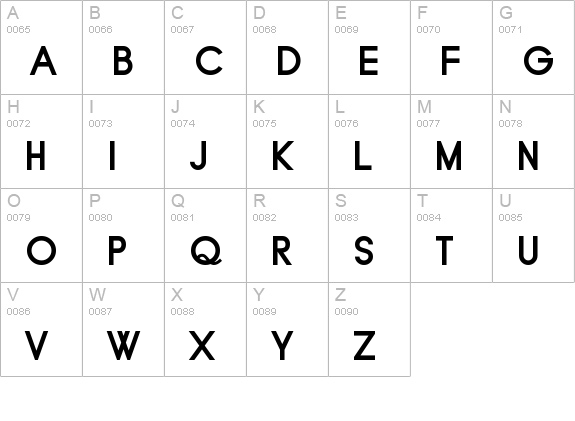
Typo Grotesk Bold Font Details
Typo Grotesk Bold is a strong, high-contrast variant in the Typo typeface family \xE2\x80\x94 well suited to headlines, attention-grabbing titles, and strong calls-to-action.
Typo Grotesk Bold font is a stunning display typeface that exudes power and confidence. With its bold and commanding presence, this font is perfect for headlines, titles, and any design project that requires a strong visual impact. The bold weight of Typo Grotesk creates a sense of authority and dominance, making it ideal for conveying important messages and grabbing the attention of the audience. Its clean and geometric letterforms give it a modern and contemporary look, while still maintaining a sense of elegance and sophistication. This font is designed with meticulous attention to detail, ensuring that each letter is perfectly balanced and harmonious. The thick strokes and sharp angles of Typo Grotesk Bold create a bold and impactful statement, while the generous spacing between letters ensures excellent legibility even at smaller sizes. One of the best things about Typo Grotesk Bold font is that it is available for free. Yes, you read that right – this incredible typeface can be freely downloaded at FontsMarket.com. This means that you can use it in your personal and commercial projects without any restrictions or limitations. Whether you're designing a logo, creating a poster, or working on a branding project, Typo Grotesk Bold font will elevate your designs and make them stand out from the crowd. Its versatility and boldness make it a go-to choice for designers who want to make a bold statement and leave a lasting impression. Download Typo Grotesk Bold font for free at FontsMarket.com and unleash its power and impact in your designs. With its strong and commanding presence, this font will help you create designs that are memorable, impactful, and visually stunning.